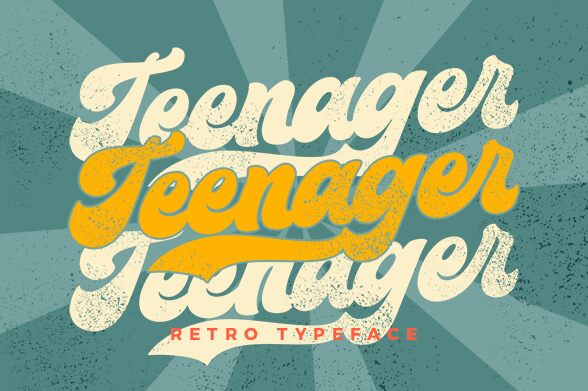
Teenager
Teenager, designed by Topan Sofyan, is a retro smooth brush font with bold weight. Its unique style can give your projects a special vintage look and feel. From social media graphics to flyers, it’s perfect for adding a touch of nostalgia to your design. Its friendly design also makes it an excellent choice for logo designs, invitation cards and book covers.